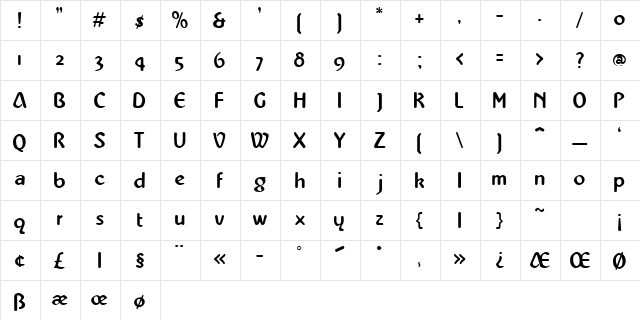
Abbat Medium
Design Context for Abbat Typeface
Abbat is a composed and adaptable typeface that performs quietly and consistently across a wide range of design contexts.